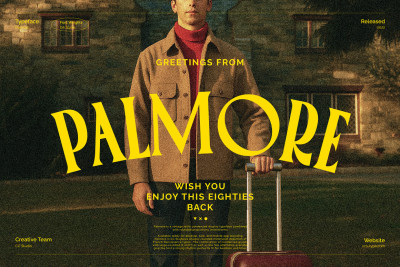
PALMORE - Vintage Rounded Serif Font
PALMORE - Vintage Rounded Serif is a professional-grade typeface designed to elevate branding, editorial, and identity projects.